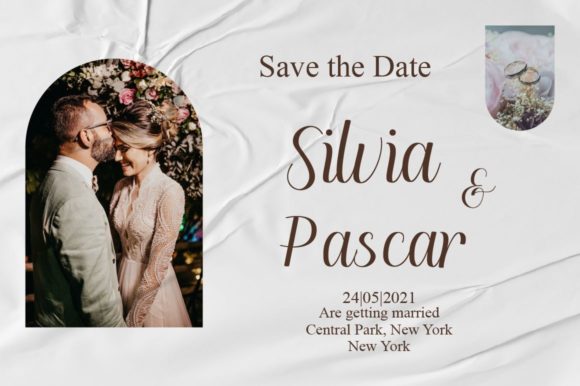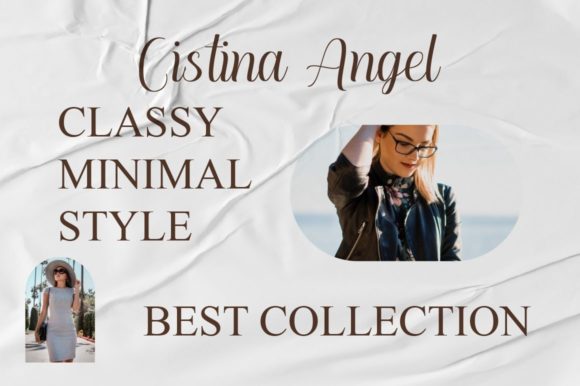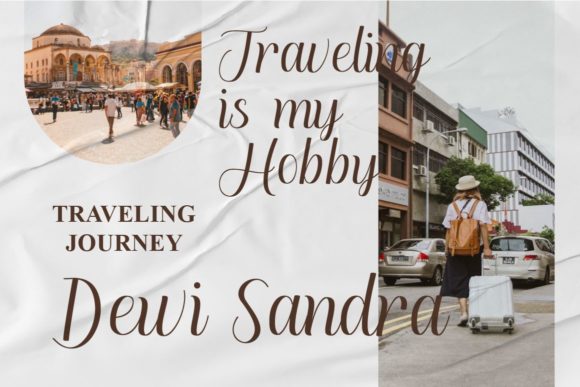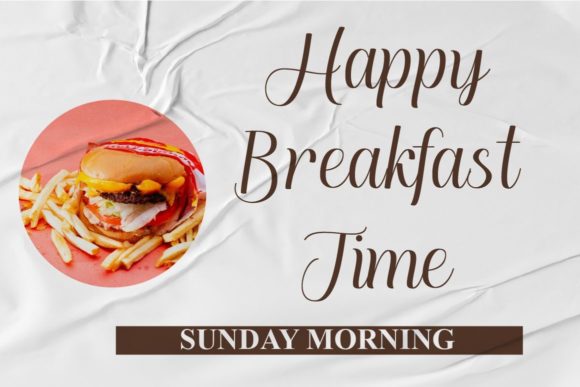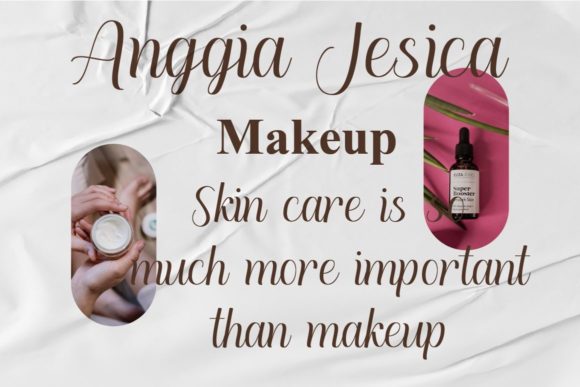
Introduction to Gery Harumy Font
Have you ever been scrolling through social media and stumbled upon a beautifully designed post that immediately catches your eye? That’s exactly what happened to me when I first discovered the stunning Gery Harumy Font. Its flowing script style and elegant curves left me wanting more, and I couldn’t wait to dive in and learn more about this amazing design resource.
As a designer, I know how valuable it is to have access to high-quality fonts that can elevate any creative project. And that’s exactly what Gery Harumy Font offers – a beautifully crafted script font that’s perfect for wedding invitations, social media posts, and so much more. With its free download available, designers can easily incorporate this font into their designs and take their projects to the next level.
Whether you’re a seasoned designer or just starting out, Gery Harumy Font is a must-have in your design arsenal. Its transparent background and flowing script style make it a versatile and stylish choice for any creative project, and its high-quality design ensures that it will always look professional and polished.
Key Features of Gery Harumy Font
- High-quality design resource ideal for creative projects, including logos, branding, and typography.
- Features a unique and modern design style, perfect for those looking to add a touch of elegance to their work.
- Designed to be highly legible, making it suitable for use in a wide range of applications, from print to digital media.
Honest Review: Gery Harumy Font
As a designer, I’m always on the lookout for high-quality design resources to elevate my creative projects. Recently, I had the chance to experiment with the Gery Harumy Font, and I’m here to share my honest review.
- ✨ Unique and stylish design: The Gery Harumy Font offers a distinctive look that can add a touch of sophistication to any creative project.
- ✨ High-quality glyphs: The font’s high-quality glyphs ensure crisp and clear text rendering, making it perfect for both digital and print projects.
- ✨ Transparent background: The font’s transparent background makes it easy to use on any design background, giving you more creative freedom.
- ⚠️ Limited font families: The Gery Harumy Font only comes in a single family, which might limit its versatility in certain design scenarios.
- ⚠️ Not ideal for large text: While the font works well for body text, it might not be the best choice for large headlines or titles.
Overall, I’m impressed with the Gery Harumy Font’s unique design and high-quality glyphs. While it has some limitations, it’s a great addition to any design resource library, especially considering it’s free to download. If you’re looking for a stylish and high-quality font for your creative projects, the Gery Harumy Font is definitely worth checking out.
Tips for Getting the Most Out of Gery Harumy Font
To get the most out of the Gery Harumy Font, use it in combination with a transparent background to create a unique and eye-catching design. You can also experiment with different font sizes and colors to achieve the desired effect.
The Gery Harumy Font is ideal for creative projects such as logos, business cards, and social media graphics. Its high-quality design and transparent background make it perfect for use in a variety of design applications.